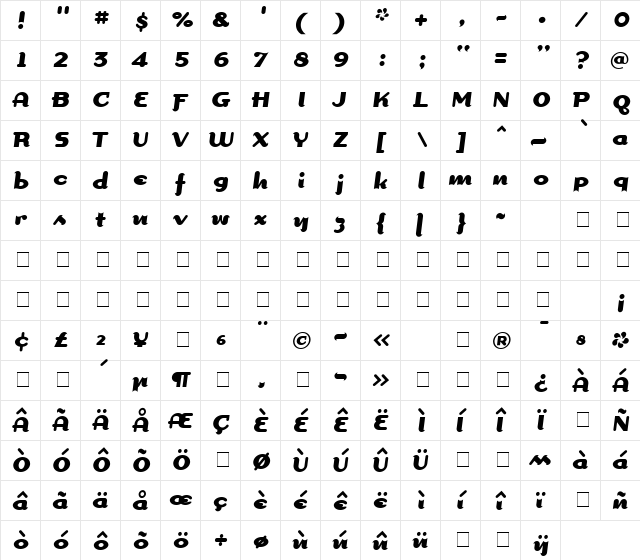
DogmaScriptBold Script Bold
Design Context for DogmaScriptBold Typeface
DogmaScriptBold flows with the natural rhythm of handwritten lettering, making it ideal for designs that call for warmth and personal expression. The heavy weight commands attention and anchors typographic hierarchies.